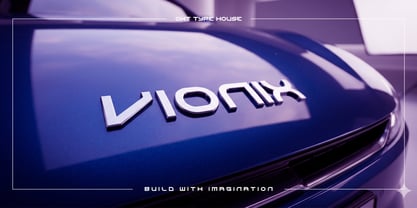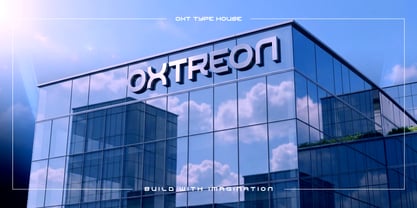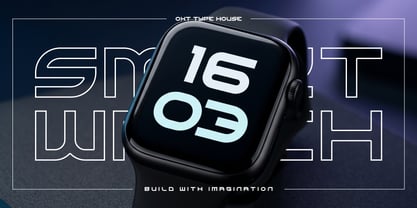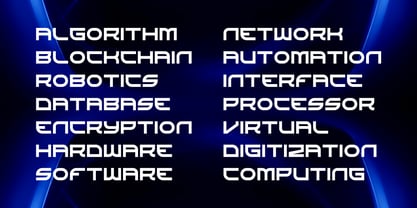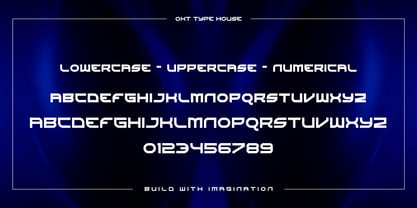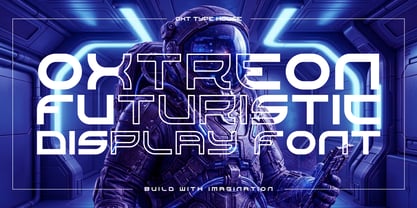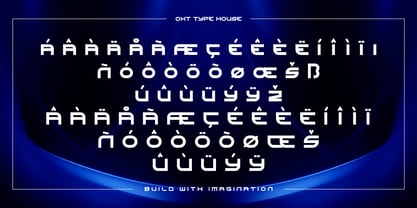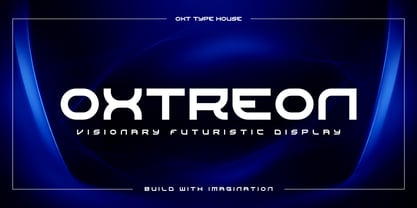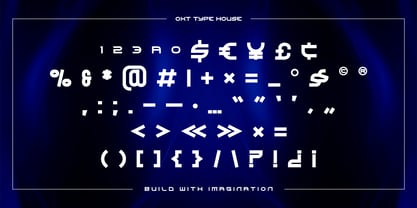
Oxtreon
por Oxt Type House
La familia tipográfica Oxtreon fue diseñada por Oksta Aziz Rachmaddan y publicada por Oxt Type House. Oxtreon contiene 1 estilos.
A bold, extended display font engineered for the future, Oxtreon is designed to elevate modern visual identities with a strong, forward-thinking presence. Featuring seamless curves, sharp precision, and a wide architectural stance, this font delivers a high-tech and minimalist aesthetic that stands out across digital and print platforms. Perfect for AI branding, automotive identity, technology startups, and cutting-edge software interfaces, Oxtreon brings clarity, strength, and innovation into every letterform. Its clean geometry and futuristic style make it highly versatile for logos, headlines, UI/UX design, posters, and branding systems that demand attention. If you’re building a brand that speaks about progress, intelligence, and modernity, Oxtreon is the display font that defines the next generation of design.